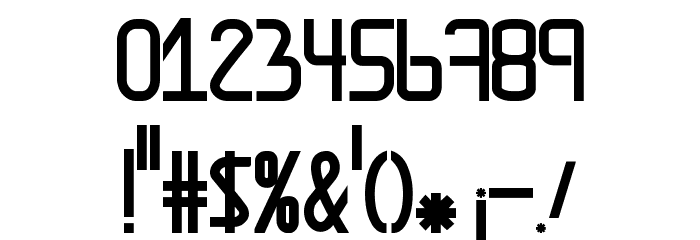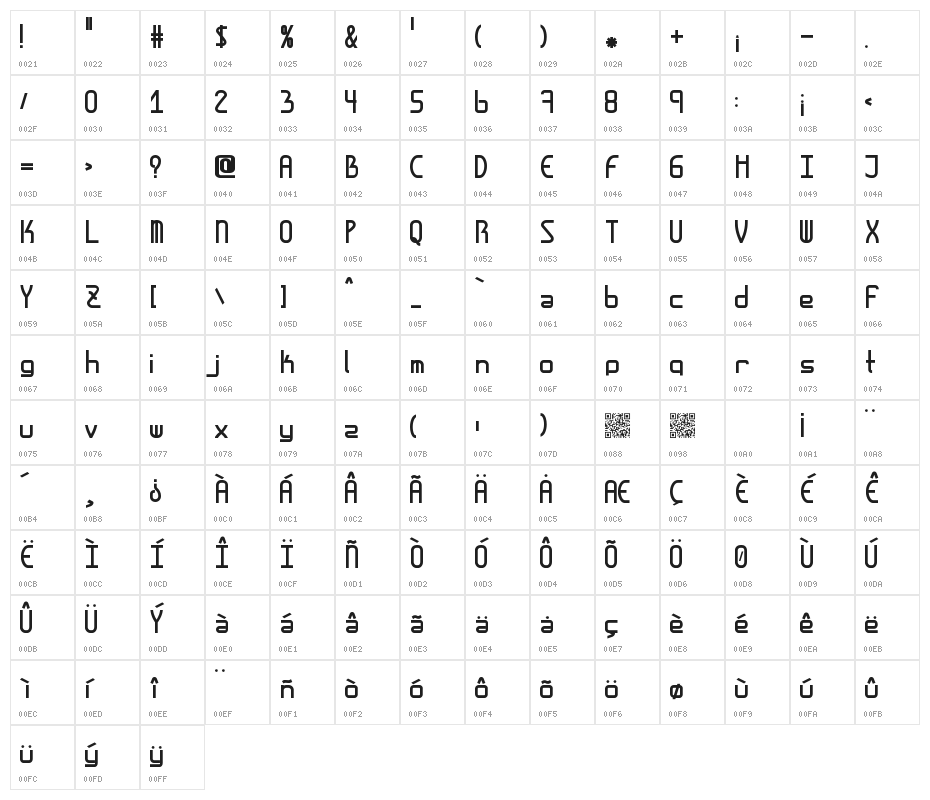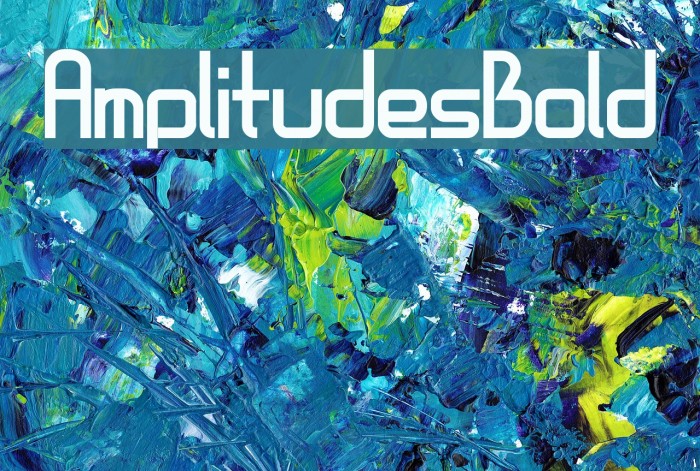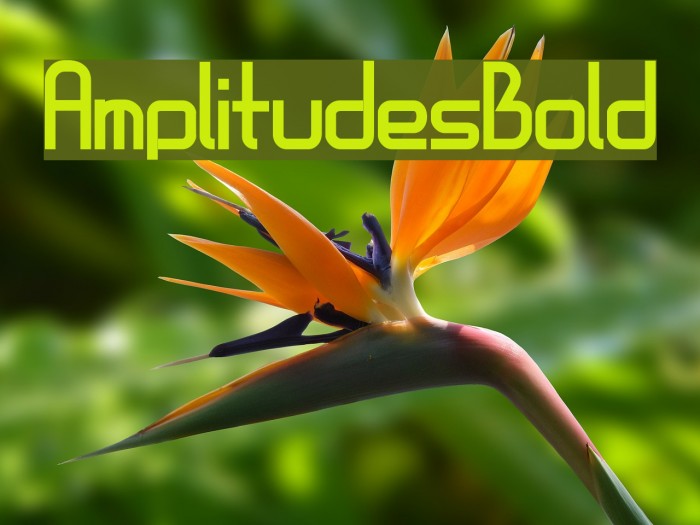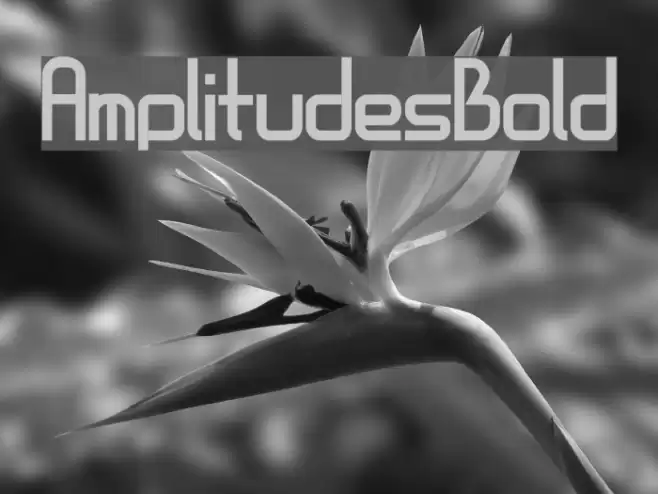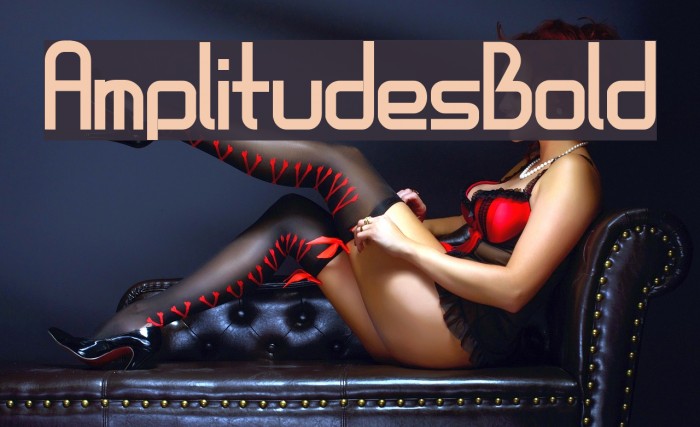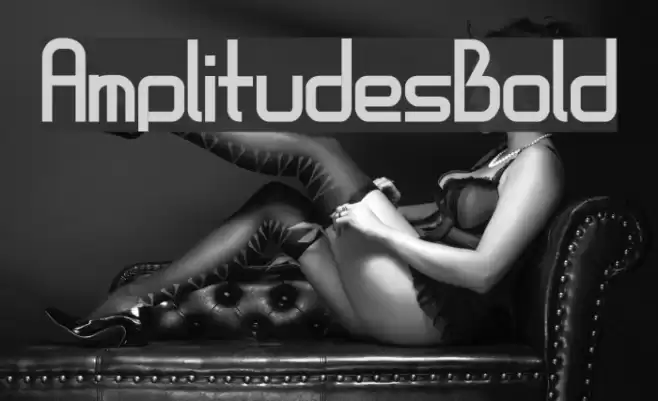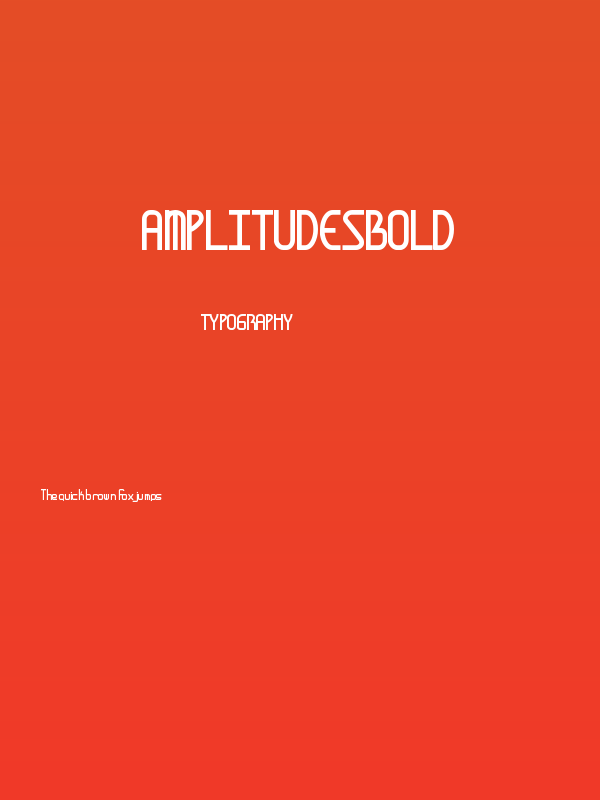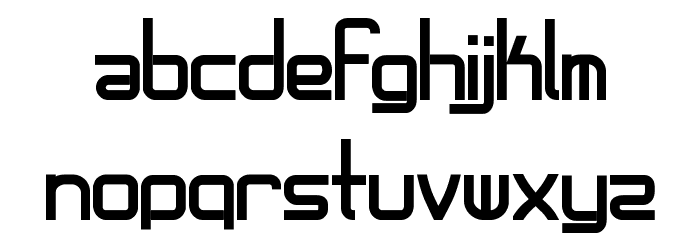
AmplitudesBold Font
AmplitudesBold Description
This font exhibits a bold, geometric style with a modern flair. The characters are constructed with clean, straight lines and sharp angles, giving it a futuristic and technical appearance. The uppercase letters are uniform in height, while the lowercase letters maintain a consistent baseline, contributing to a cohesive look. The numerals are distinct and align well with the overall design, ensuring readability. Special characters are uniquely styled, adding to the font's versatility. The overall design is sleek and minimalistic, making it suitable for contemporary projects.
| Use Case | Headlines, Logos, Digital Interfaces |
| Proposed Projects | Ideal for technology branding, modern advertising, futuristic posters, and digital interfaces. |